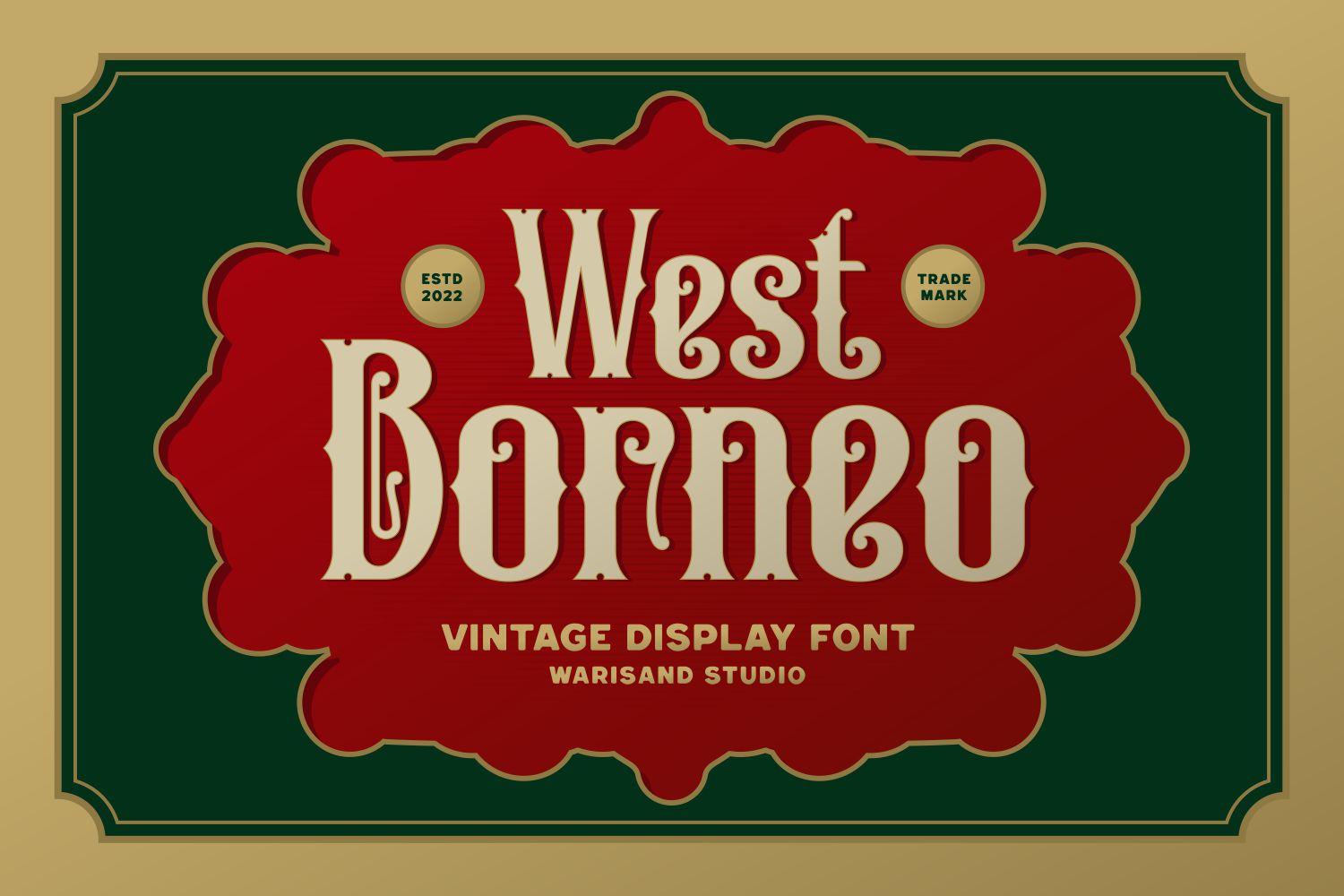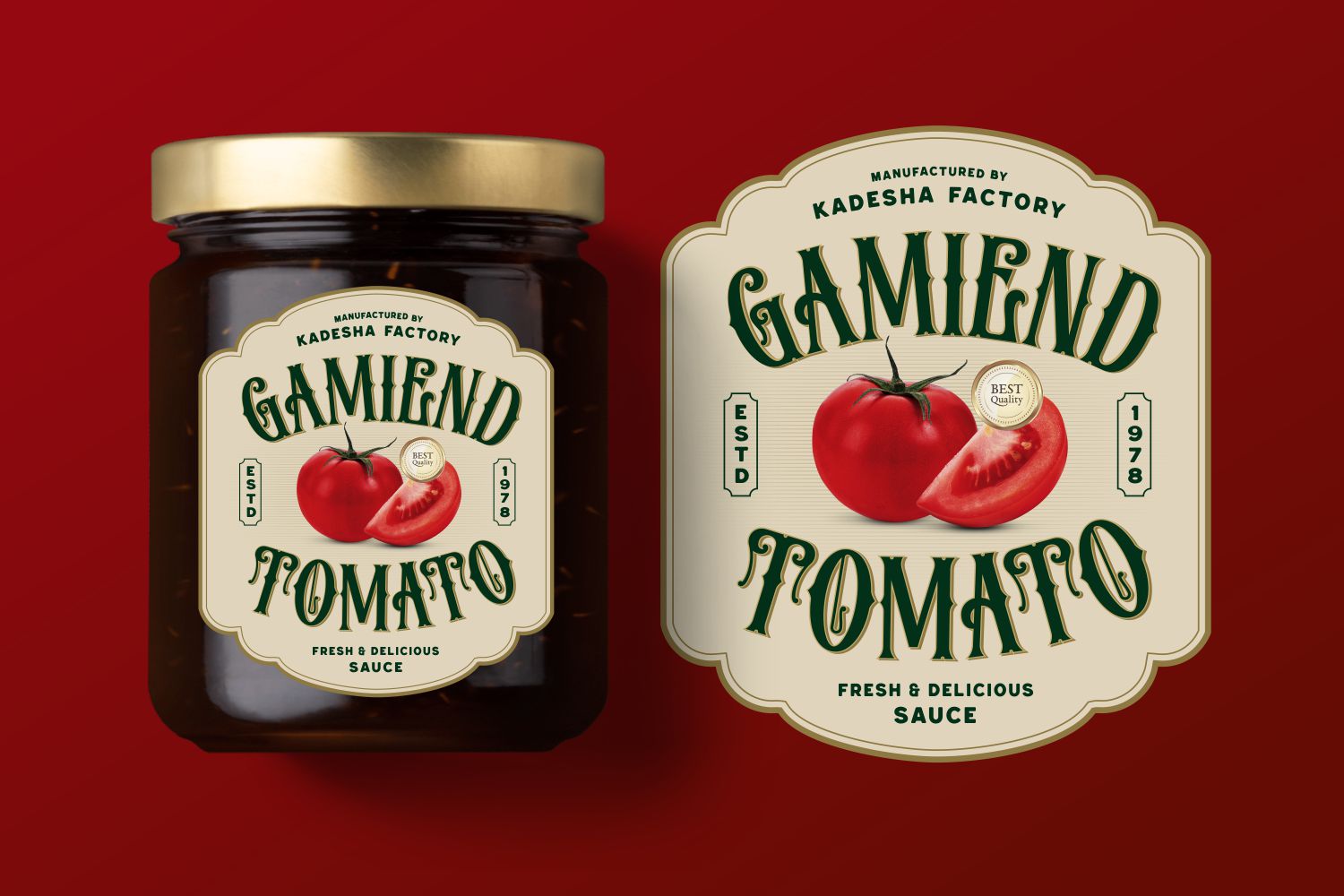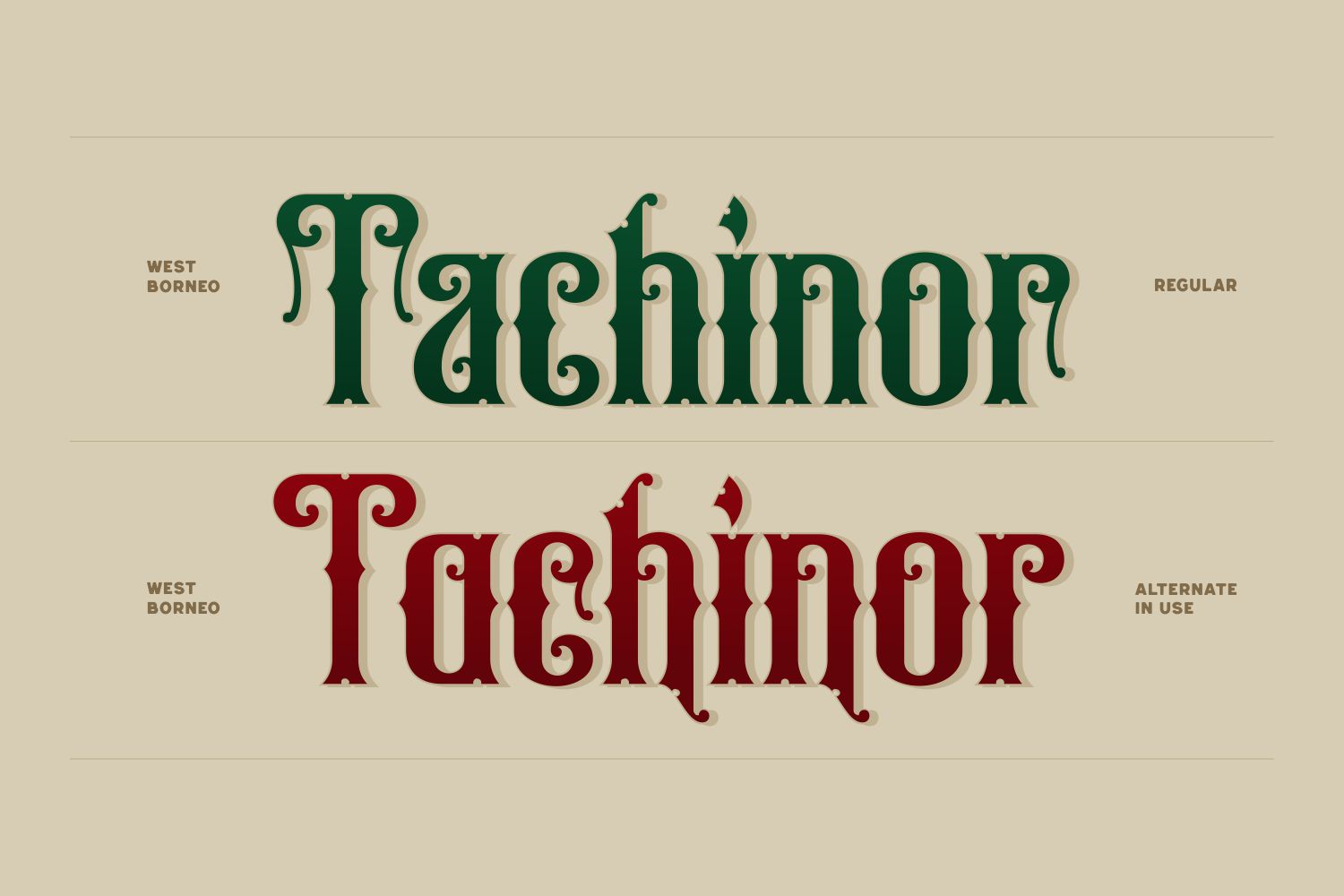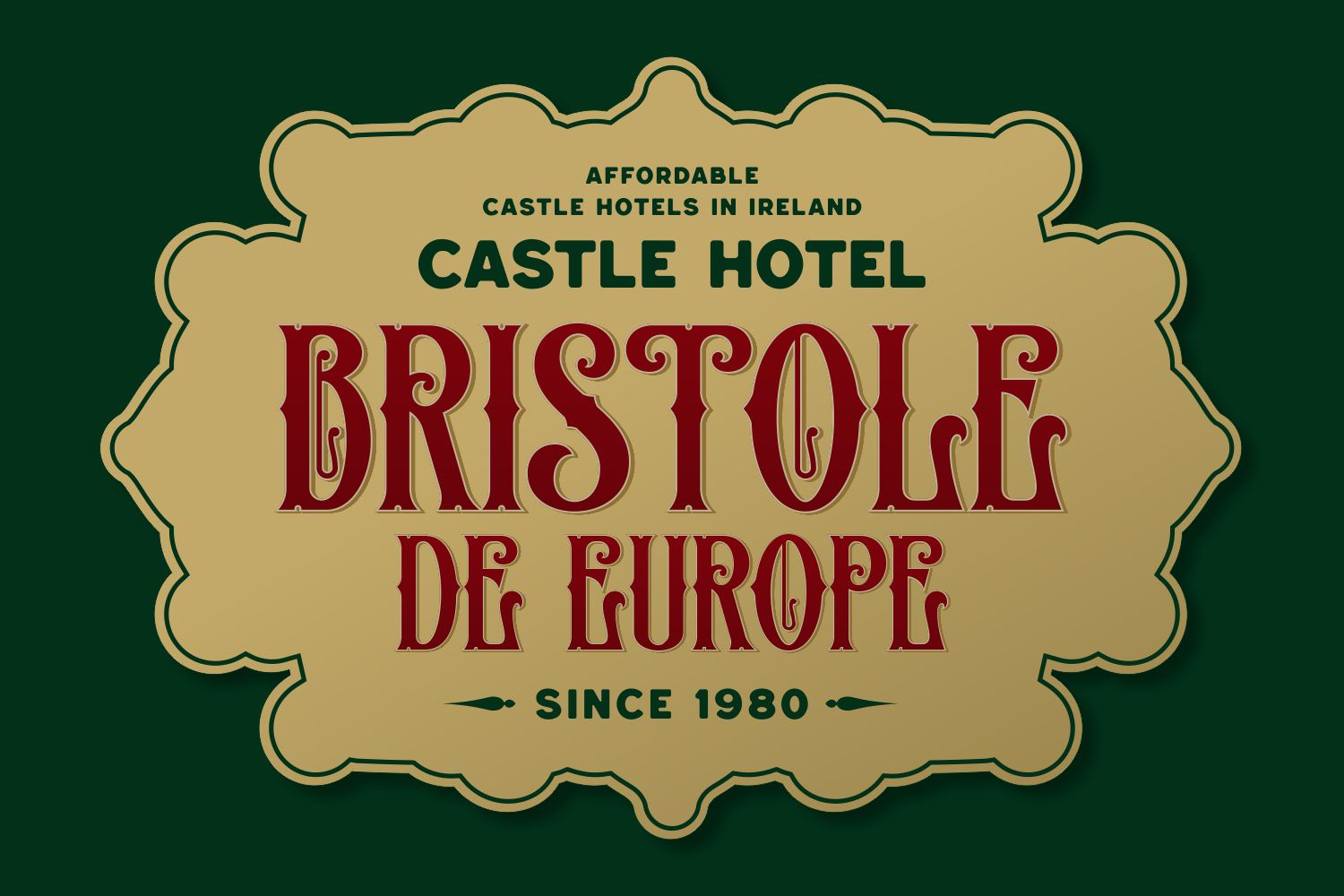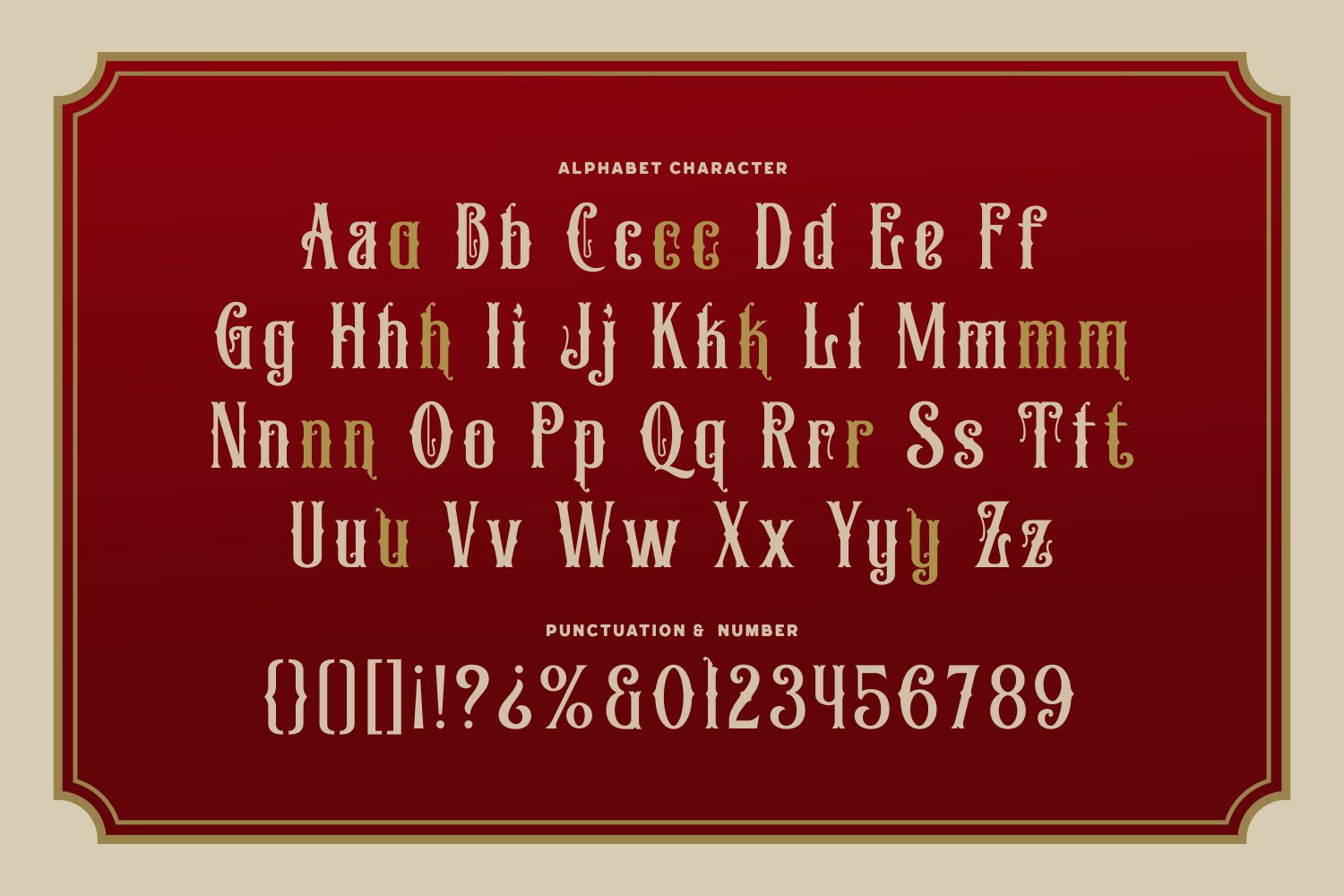
West Borneo is a vintage display font inspired by classic Western signage and traditional ornamental lettering. With its bold serifs, decorative swashes, and alternate letterforms, this typeface delivers a distinct character that evokes a sense of heritage and craftsmanship. The font includes uppercase, lowercase, numbers, and punctuation, with stylistic alternates that bring variety and visual richness to your design projects.
Perfectly suited for packaging, labels, vintage logos, bar signage, or editorial headlines, West Borneo brings a nostalgic flair while maintaining strong legibility. Whether you’re working on a retro-themed branding project or an artisanal product label, this font will effortlessly elevate your visual identity with charm and personality.
West Borneo